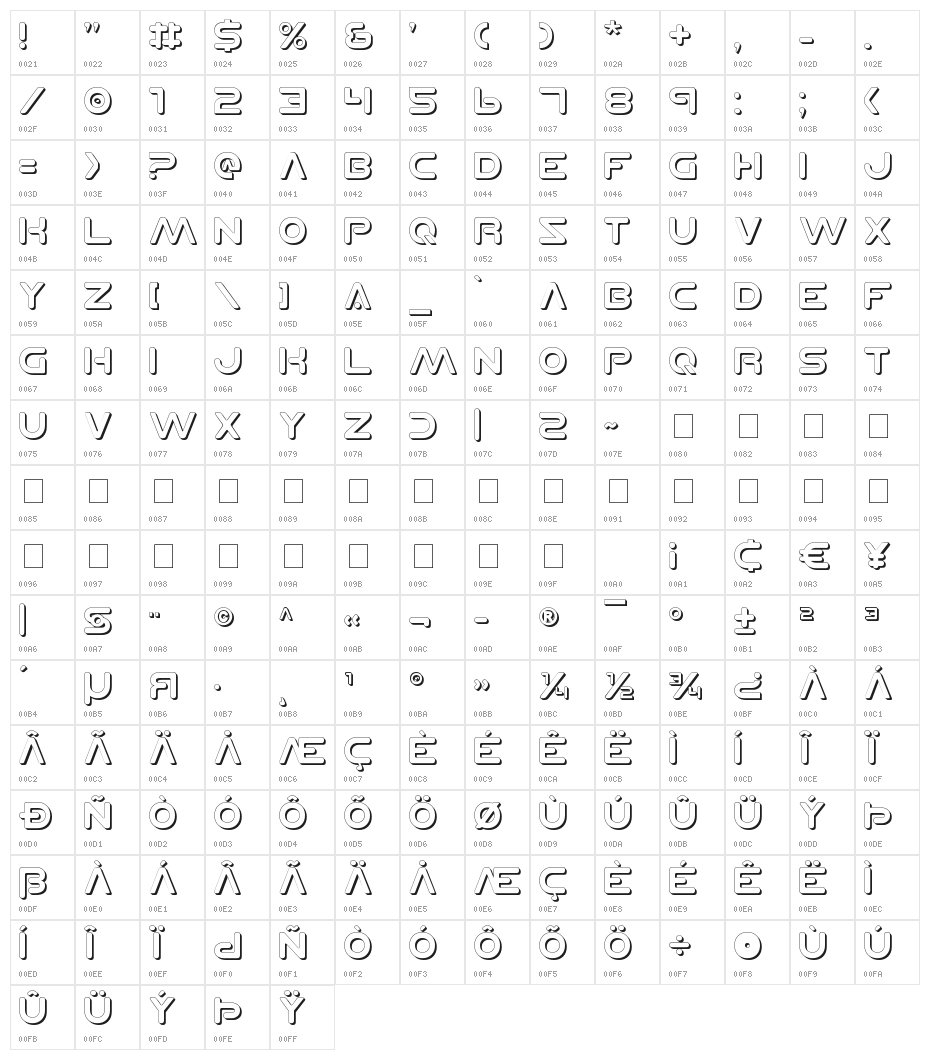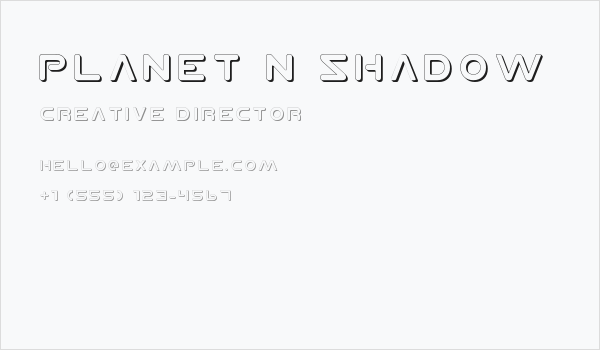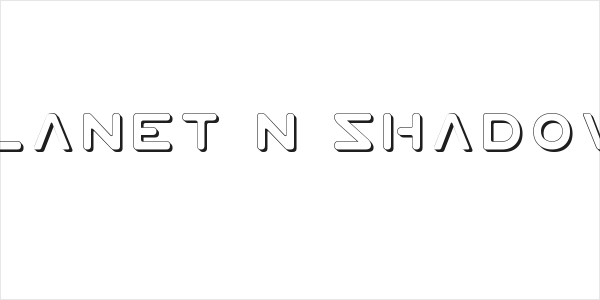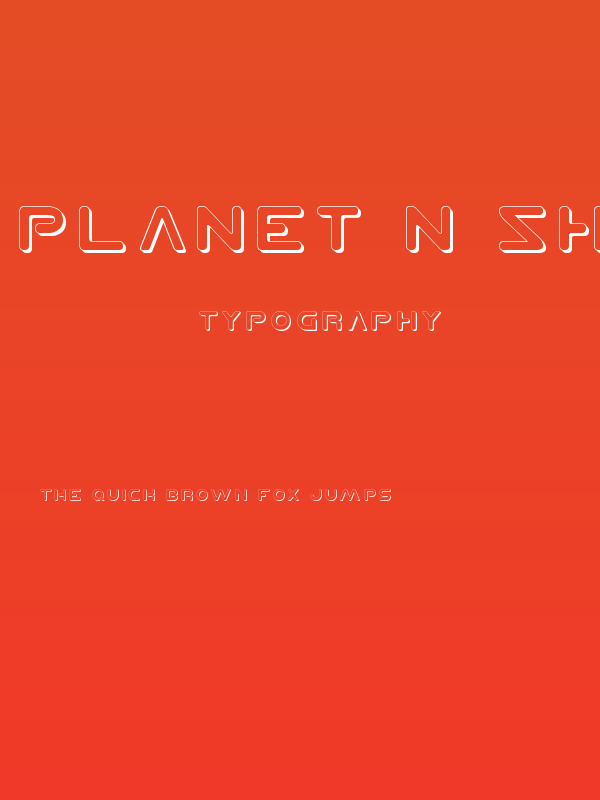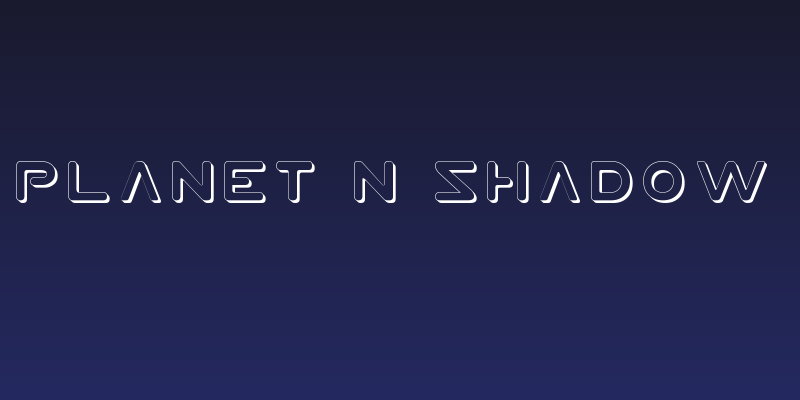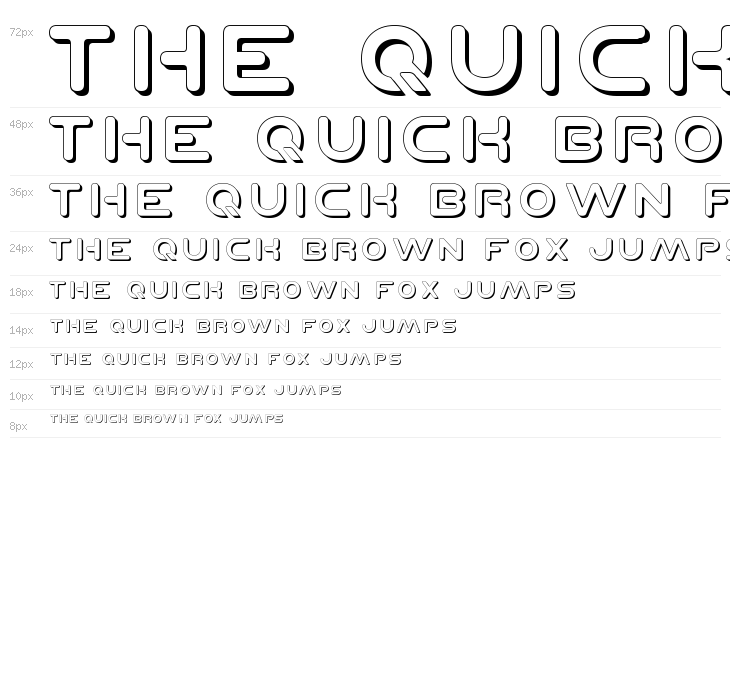
Planet N Shadow Font
Planet N Shadow Description
This font features a futuristic and geometric design, characterized by its bold, hollow letterforms with a shadow effect that gives a three-dimensional appearance. The uppercase and lowercase letters maintain a consistent style, with clean lines and sharp angles that create a modern and sleek look. The numerals and special characters follow the same design principles, ensuring uniformity across all glyphs. The font's unique shadowing adds depth and visual interest, making it stand out in any design project.
| Proposed Projects | Ideal for sci-fi themed designs, technology branding, posters, and modern digital interfaces. |